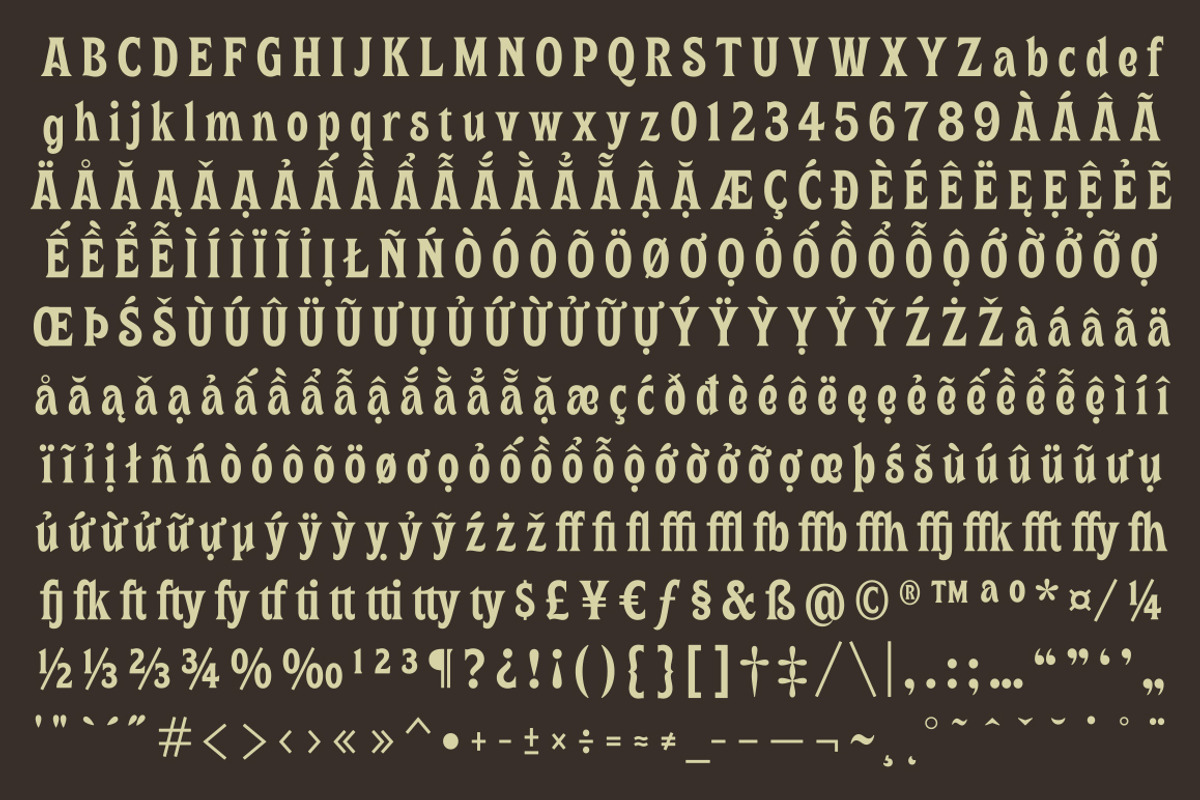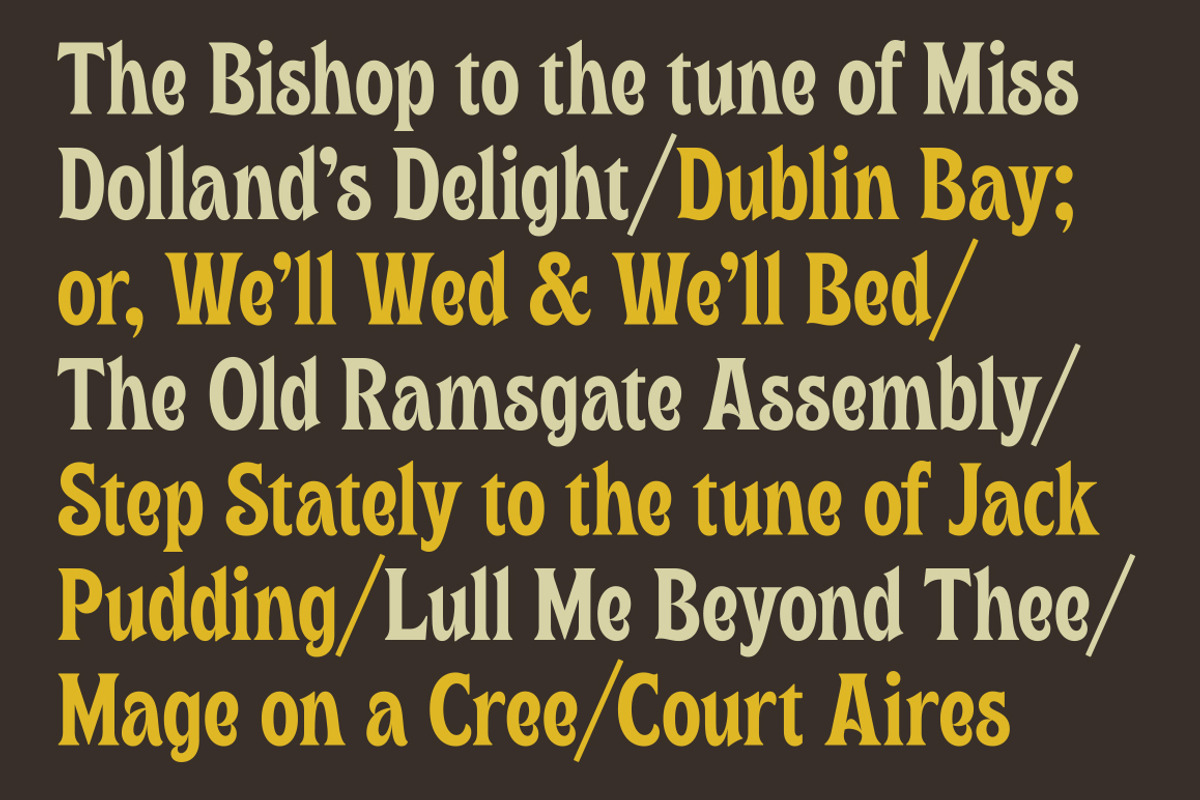
Jack’s Maggot
Jack’s Maggot was my Dad’s band back in the early 80s, a hairy outfit that performed old English country dance numbers and medieval bawdy ballads. This font is the funky offspring.